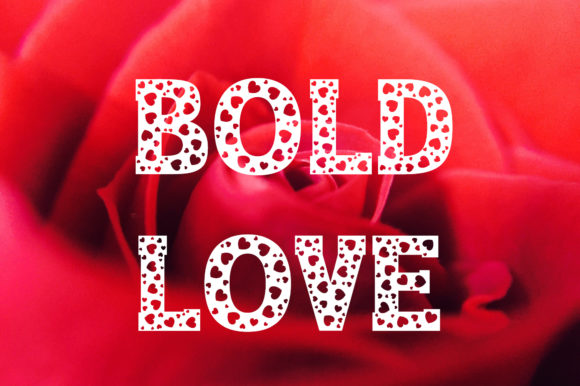
The Power of Bold Love: A Font That Speaks Volumes
I’ll never forget the time I was working on a project for a client who wanted a bold, eye-catching font to make their brand stand out. I scoured the internet, tried countless fonts, but nothing seemed quite right. That was until I stumbled upon Bold Love, a sweet yet bold and thick lettered display font that instantly caught my attention. In this article, I’ll share my experience with Bold Love, its features, and how to make the most of it in your creative projects.
First Impressions: A Review of Bold Love
So, what makes Bold Love so special? Let’s dive into the good stuff! 😊
• ✨ Sweet yet bold: Bold Love strikes the perfect balance between being sweet and bold, making it perfect for a wide range of creative projects.
• ✅ Thick lettered: The font’s thick letters make it highly legible, even at smaller sizes.
• 💥 Attention-grabbing: Bold Love is designed to make your text stand out, which is perfect for headings, titles, and emphasis.
The Not-So-Perfect: A Few Quirks
While Bold Love is an amazing font, it’s not without its quirks. Here are a few things to keep in mind:
• 🤔 Limited use cases: Due to its bold nature, Bold Love works best for headings and titles. It might not be the best choice for body text or long paragraphs.
• ⚠️ Glyph limitations: While Bold Love has a range of glyphs, it might not have every special character or symbol you need.
The Story Behind Bold Love
Bold Love was designed by a talented typographer who wanted to create a font that would make a statement. Inspired by the beauty of love and relationships, Bold Love is a font that’s both sweet and bold. Whether you’re designing a logo, creating a social media post, or crafting a beautiful wedding invitation, Bold Love is the perfect choice.
What is Bold Love? Bold Love is a sweet yet bold and thick lettered display font.
What can I use Bold Love for? Bold Love is perfect for headings, titles, and emphasis. It’s ideal for logos, social media posts, wedding invitations, and more.